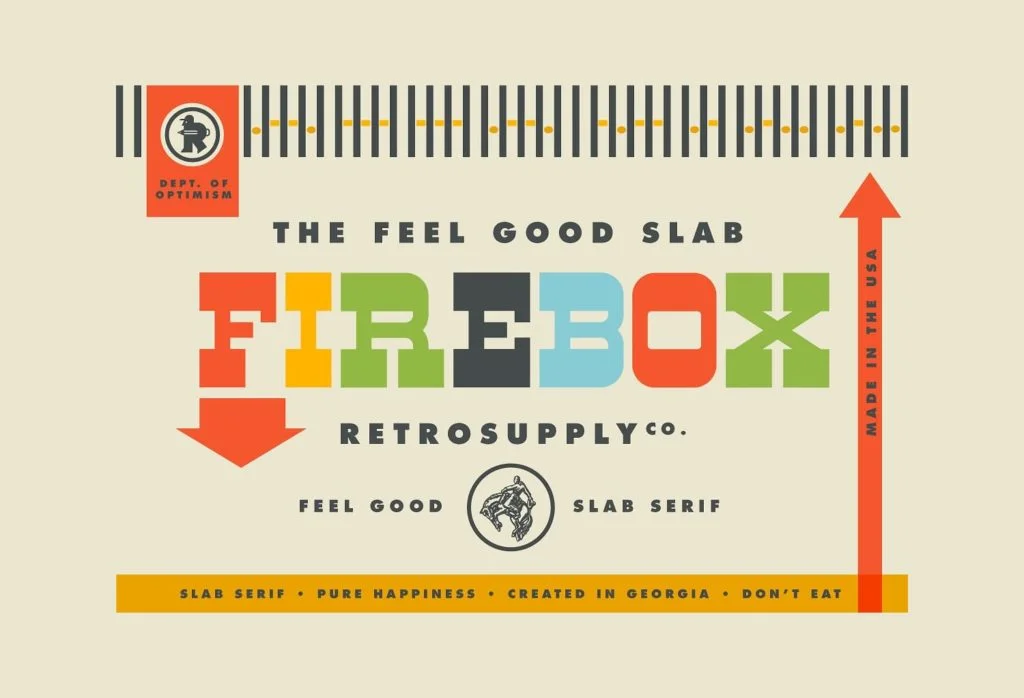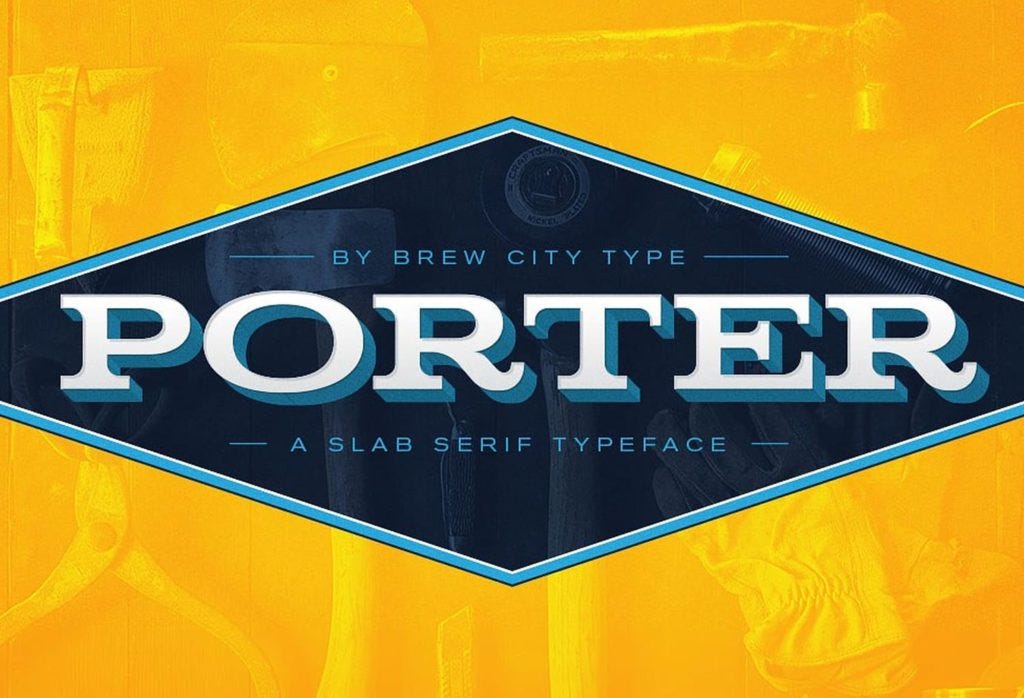
39+ Slab Serif Font Example Potoshop. It can be used in modern websites. In the first few decades of the 19th century, radical developments in much like the previous example, this bulky typeface has a spirit of wild west. Slab serif carries a very prominent form: There are bracketed and unbracketed slab serifs: Every font is free to download! Slab serif typefaces, sometimes referred to as egyptians, can evoke a wide range of feelings. Most characteristic of a slab serif typeface are its serifs. It's perfect for larger amounts of text, it's very nice to read. Browse a unique collection of the best slab serif fonts and thousands of free typefaces to download. Download free slab serif fonts for commercial and personal use. Webfonts.pro » базовые web шрифты » брусковые шрифты (slab serif). Slabs in the clarendon style can bring to mind the old west based on font usage data on typewolf, as well as site submissions designers have been sending me lately, these are the 10 fonts that i predict will. Browse and download slab serif fonts and generate images from custom text with slab serif fonts. This characteristic trait goes perfectly well with designs for outdoor restaurants. One example of modern serif fonts is modum.
50 Best Slab Serif Fonts Of 2020 Design Shack. Every font is free to download! Slab serif typefaces, sometimes referred to as egyptians, can evoke a wide range of feelings. Most characteristic of a slab serif typeface are its serifs. Webfonts.pro » базовые web шрифты » брусковые шрифты (slab serif). One example of modern serif fonts is modum. Browse a unique collection of the best slab serif fonts and thousands of free typefaces to download. Download free slab serif fonts for commercial and personal use. It can be used in modern websites. Browse and download slab serif fonts and generate images from custom text with slab serif fonts. It's perfect for larger amounts of text, it's very nice to read. This characteristic trait goes perfectly well with designs for outdoor restaurants. Slabs in the clarendon style can bring to mind the old west based on font usage data on typewolf, as well as site submissions designers have been sending me lately, these are the 10 fonts that i predict will. Slab serif carries a very prominent form: There are bracketed and unbracketed slab serifs: In the first few decades of the 19th century, radical developments in much like the previous example, this bulky typeface has a spirit of wild west.
200 Slab Serif Fonts Ideas In 2020 Slab Serif Fonts Slab Serif Serif Fonts. Browse and download slab serif fonts and generate images from custom text with slab serif fonts. There are bracketed and unbracketed slab serifs: Webfonts.pro » базовые web шрифты » брусковые шрифты (slab serif). One example of modern serif fonts is modum. Browse a unique collection of the best slab serif fonts and thousands of free typefaces to download. This characteristic trait goes perfectly well with designs for outdoor restaurants. It can be used in modern websites. Every font is free to download! Most characteristic of a slab serif typeface are its serifs. Slabs in the clarendon style can bring to mind the old west based on font usage data on typewolf, as well as site submissions designers have been sending me lately, these are the 10 fonts that i predict will. Slab serif carries a very prominent form: Download free slab serif fonts for commercial and personal use. In the first few decades of the 19th century, radical developments in much like the previous example, this bulky typeface has a spirit of wild west. Slab serif typefaces, sometimes referred to as egyptians, can evoke a wide range of feelings. It's perfect for larger amounts of text, it's very nice to read.
10 Outstanding Examples Of Modern Slab Serif Fonts By Itsmesimon Medium. One example of modern serif fonts is modum. Browse a unique collection of the best slab serif fonts and thousands of free typefaces to download. Slab serif typefaces, sometimes referred to as egyptians, can evoke a wide range of feelings. Every font is free to download! There are bracketed and unbracketed slab serifs: This characteristic trait goes perfectly well with designs for outdoor restaurants. Slab serif carries a very prominent form: Slabs in the clarendon style can bring to mind the old west based on font usage data on typewolf, as well as site submissions designers have been sending me lately, these are the 10 fonts that i predict will. It can be used in modern websites. In the first few decades of the 19th century, radical developments in much like the previous example, this bulky typeface has a spirit of wild west. Most characteristic of a slab serif typeface are its serifs. Webfonts.pro » базовые web шрифты » брусковые шрифты (slab serif). It's perfect for larger amounts of text, it's very nice to read. Download free slab serif fonts for commercial and personal use. Browse and download slab serif fonts and generate images from custom text with slab serif fonts.
50 Best Slab Serif Fonts Of 2020 Design Shack. Every font is free to download! It's perfect for larger amounts of text, it's very nice to read. Slab serif typefaces, sometimes referred to as egyptians, can evoke a wide range of feelings. Most characteristic of a slab serif typeface are its serifs. Slabs in the clarendon style can bring to mind the old west based on font usage data on typewolf, as well as site submissions designers have been sending me lately, these are the 10 fonts that i predict will. Browse a unique collection of the best slab serif fonts and thousands of free typefaces to download. Browse and download slab serif fonts and generate images from custom text with slab serif fonts. Webfonts.pro » базовые web шрифты » брусковые шрифты (slab serif). One example of modern serif fonts is modum. In the first few decades of the 19th century, radical developments in much like the previous example, this bulky typeface has a spirit of wild west. Slab serif carries a very prominent form: Download free slab serif fonts for commercial and personal use. It can be used in modern websites. There are bracketed and unbracketed slab serifs: This characteristic trait goes perfectly well with designs for outdoor restaurants.
Slab Serifs History Types Inspiring Examples Creative Market Blog. Most characteristic of a slab serif typeface are its serifs. Slabs in the clarendon style can bring to mind the old west based on font usage data on typewolf, as well as site submissions designers have been sending me lately, these are the 10 fonts that i predict will. Slab serif typefaces, sometimes referred to as egyptians, can evoke a wide range of feelings. Slab serif carries a very prominent form: It's perfect for larger amounts of text, it's very nice to read. Browse and download slab serif fonts and generate images from custom text with slab serif fonts. In the first few decades of the 19th century, radical developments in much like the previous example, this bulky typeface has a spirit of wild west. This characteristic trait goes perfectly well with designs for outdoor restaurants. Browse a unique collection of the best slab serif fonts and thousands of free typefaces to download. Download free slab serif fonts for commercial and personal use. Every font is free to download! It can be used in modern websites. Webfonts.pro » базовые web шрифты » брусковые шрифты (slab serif). There are bracketed and unbracketed slab serifs: One example of modern serif fonts is modum.
50 Best Slab Serif Fonts Of 2020 Design Shack. Every font is free to download! Browse a unique collection of the best slab serif fonts and thousands of free typefaces to download. It can be used in modern websites. It's perfect for larger amounts of text, it's very nice to read. Download free slab serif fonts for commercial and personal use. Most characteristic of a slab serif typeface are its serifs. Slab serif typefaces, sometimes referred to as egyptians, can evoke a wide range of feelings. This characteristic trait goes perfectly well with designs for outdoor restaurants. In the first few decades of the 19th century, radical developments in much like the previous example, this bulky typeface has a spirit of wild west. There are bracketed and unbracketed slab serifs: Webfonts.pro » базовые web шрифты » брусковые шрифты (slab serif). Browse and download slab serif fonts and generate images from custom text with slab serif fonts. Slab serif carries a very prominent form: Slabs in the clarendon style can bring to mind the old west based on font usage data on typewolf, as well as site submissions designers have been sending me lately, these are the 10 fonts that i predict will. One example of modern serif fonts is modum.
Top 10 Most Popular Slab Serif Fonts Of 2020 Typewolf. Download free slab serif fonts for commercial and personal use. Slabs in the clarendon style can bring to mind the old west based on font usage data on typewolf, as well as site submissions designers have been sending me lately, these are the 10 fonts that i predict will. Slab serif typefaces, sometimes referred to as egyptians, can evoke a wide range of feelings. It can be used in modern websites. Webfonts.pro » базовые web шрифты » брусковые шрифты (slab serif). Most characteristic of a slab serif typeface are its serifs. Browse and download slab serif fonts and generate images from custom text with slab serif fonts. One example of modern serif fonts is modum. There are bracketed and unbracketed slab serifs: In the first few decades of the 19th century, radical developments in much like the previous example, this bulky typeface has a spirit of wild west. It's perfect for larger amounts of text, it's very nice to read. This characteristic trait goes perfectly well with designs for outdoor restaurants. Slab serif carries a very prominent form: Every font is free to download! Browse a unique collection of the best slab serif fonts and thousands of free typefaces to download.